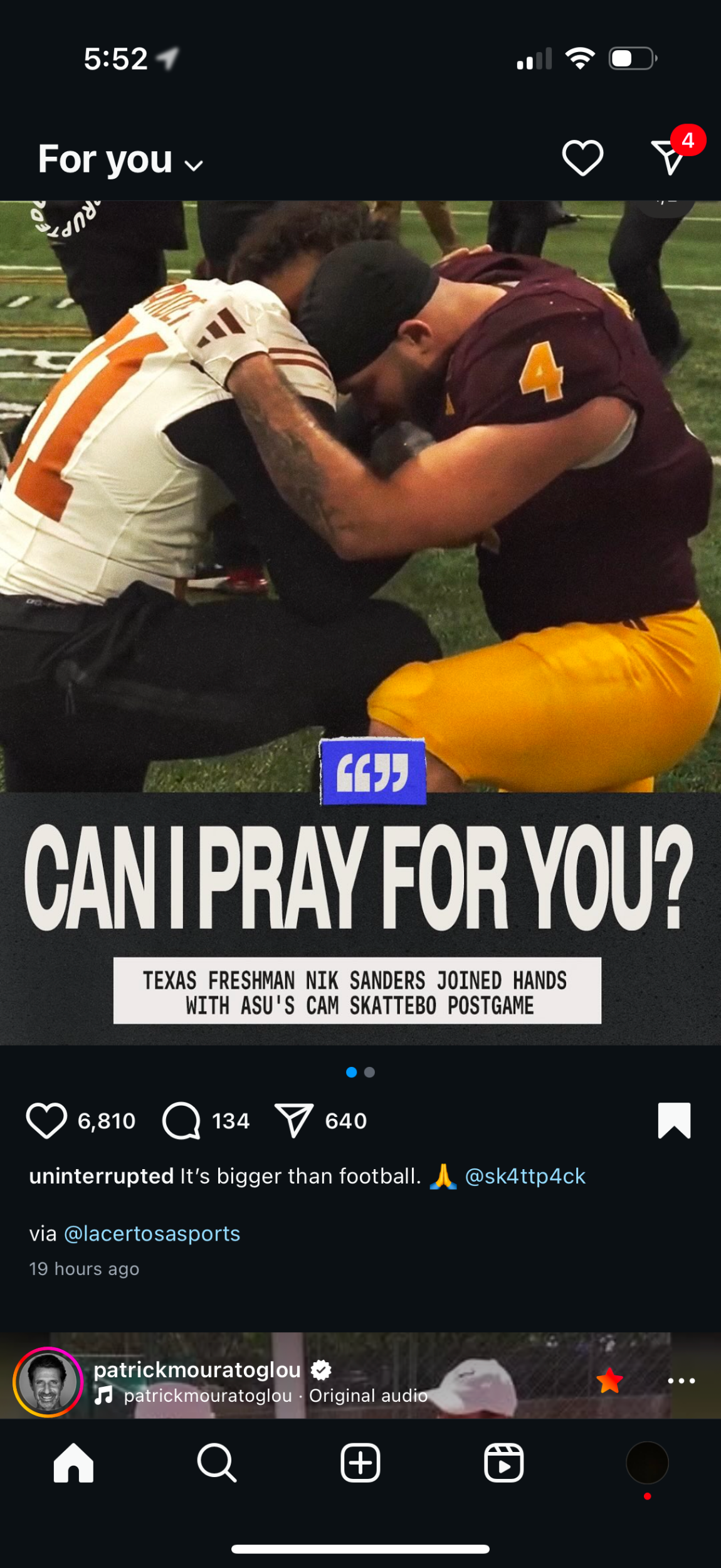
Help with identifying this font from a screenshot from Instagram
I took a screenshot from an Instagram post by Uninterrupted and want to identify the font used for the text 'Can I pray for you?'. Initially, I thought it might be from the Helvetica Now Display family, but I couldn’t find a condensed, narrow style that matches. Any ideas on what font this could be? Thank you.